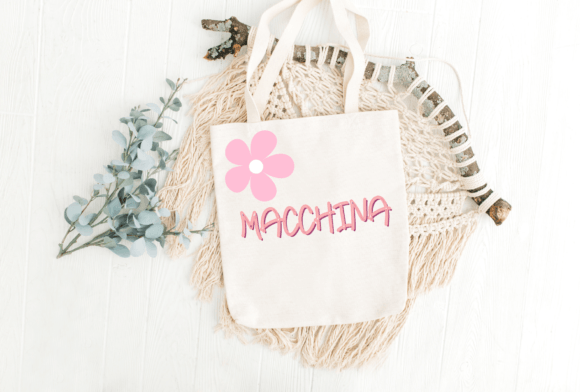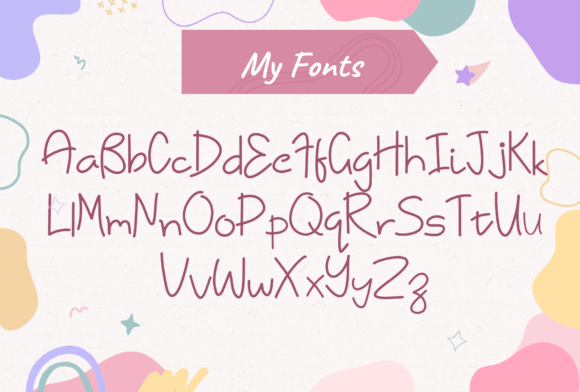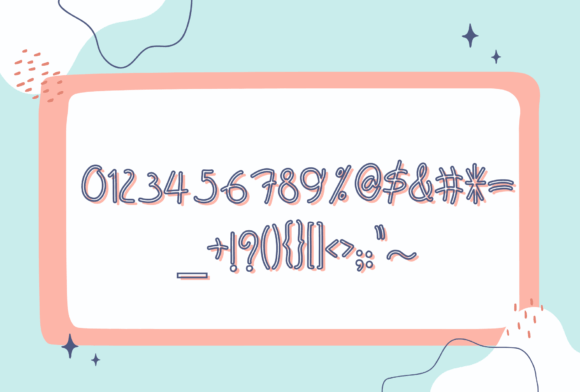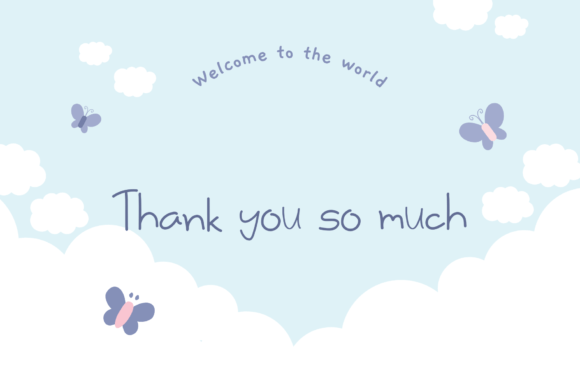
Macchina Font
The Macchina Font Download is a fun, cute, and smooth handwritten display script created to add joy and energy to your designs. With its playful strokes and versatile style, it adapts well to both personal and professional projects. Because of its lively character, Macchina is perfect for logotypes, stickers, kids’ signs, posters, and digital graphics.
A Fun Handwritten Display Font
Macchina combines a handwritten flow with a smooth, rounded finish. Unlike rigid display fonts, this Macchina script font feels natural, friendly, and engaging. As a result, it is an excellent choice for projects that need to balance creativity with readability.
Perfect for Kids’ Designs and Crafts
Playful designs require fonts that feel lighthearted and warm. The Macchina Font is perfect for children’s signs, classroom posters, and craft projects. Moreover, its fun and smooth style ensures your designs feel cheerful and approachable.
Branding and Logotypes with Macchina Font
Typography plays a major role in branding. The Macchina handwritten font is well-suited for boutique logos, product packaging, and branding projects. In addition, it gives businesses a playful yet stylish personality that connects with modern audiences.
Stickers, Posters, and Lettering Projects
Large and small projects alike benefit from bold, fun fonts. The Macchina Font Download works beautifully on stickers, event posters, and personalized lettering. Therefore, it is a great choice for projects where you want your text to stand out in a playful way.
In the digital space, fun and engaging fonts attract more attention. The Macchina typeface integrates seamlessly into Instagram posts, Pinterest graphics, YouTube thumbnails, and blogs. Its friendly handwritten look helps your content shine online.
Why Designers Choose Macchina Typeface
Designers prefer fonts that offer versatility while keeping a unique charm. Many handwritten display fonts can feel limited, but the Macchina handwritten script balances smoothness, playfulness, and clarity. This makes it a reliable choice for both professionals and hobbyists.
Add Playfulness to Your Designs Today
If you want a handwritten display font that feels fun, cute, and versatile, the Macchina Font Download is the right choice. From kids’ projects and stickers to branding and posters, it adds energy and charm to any design. Finally, download Macchina today and let your work shine with creativity.